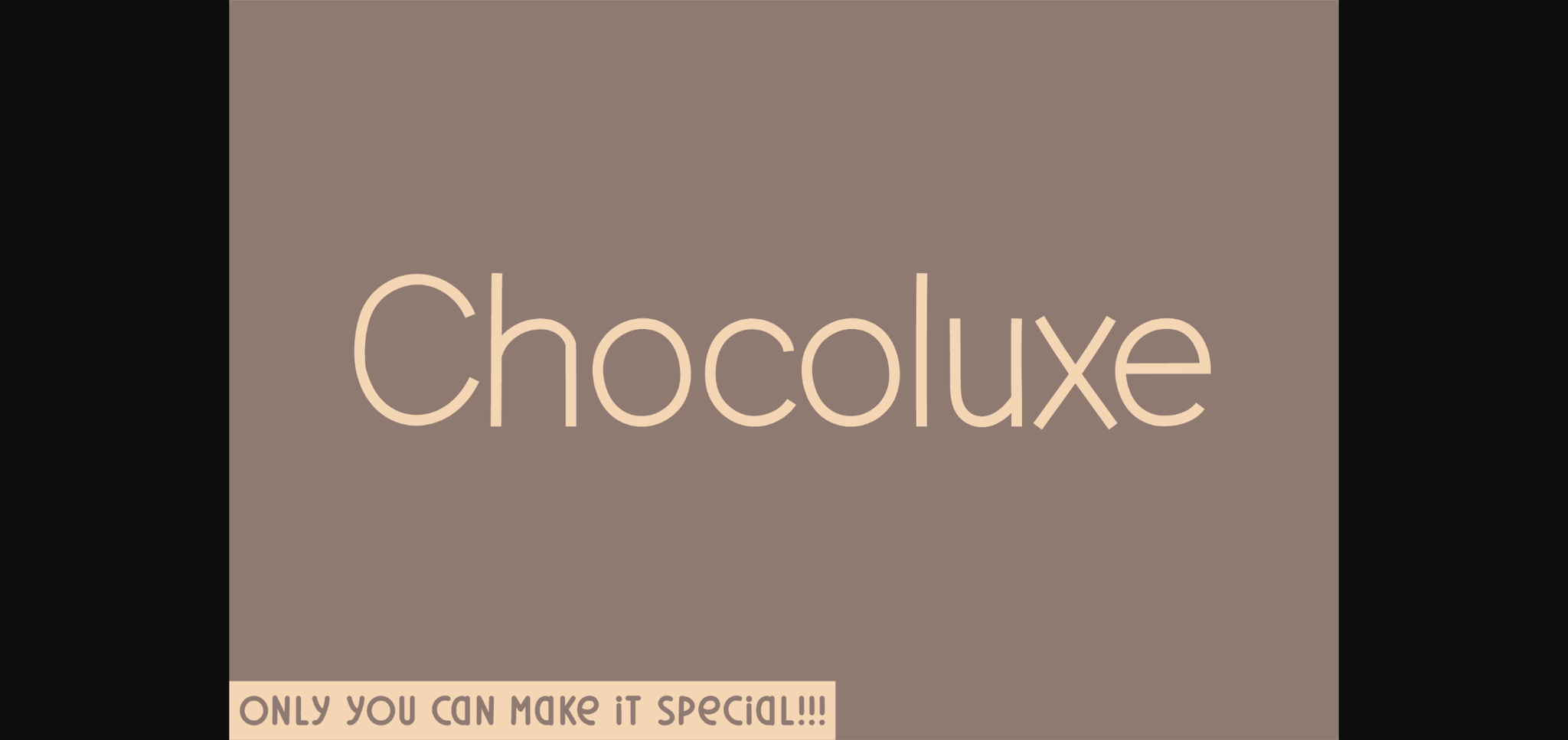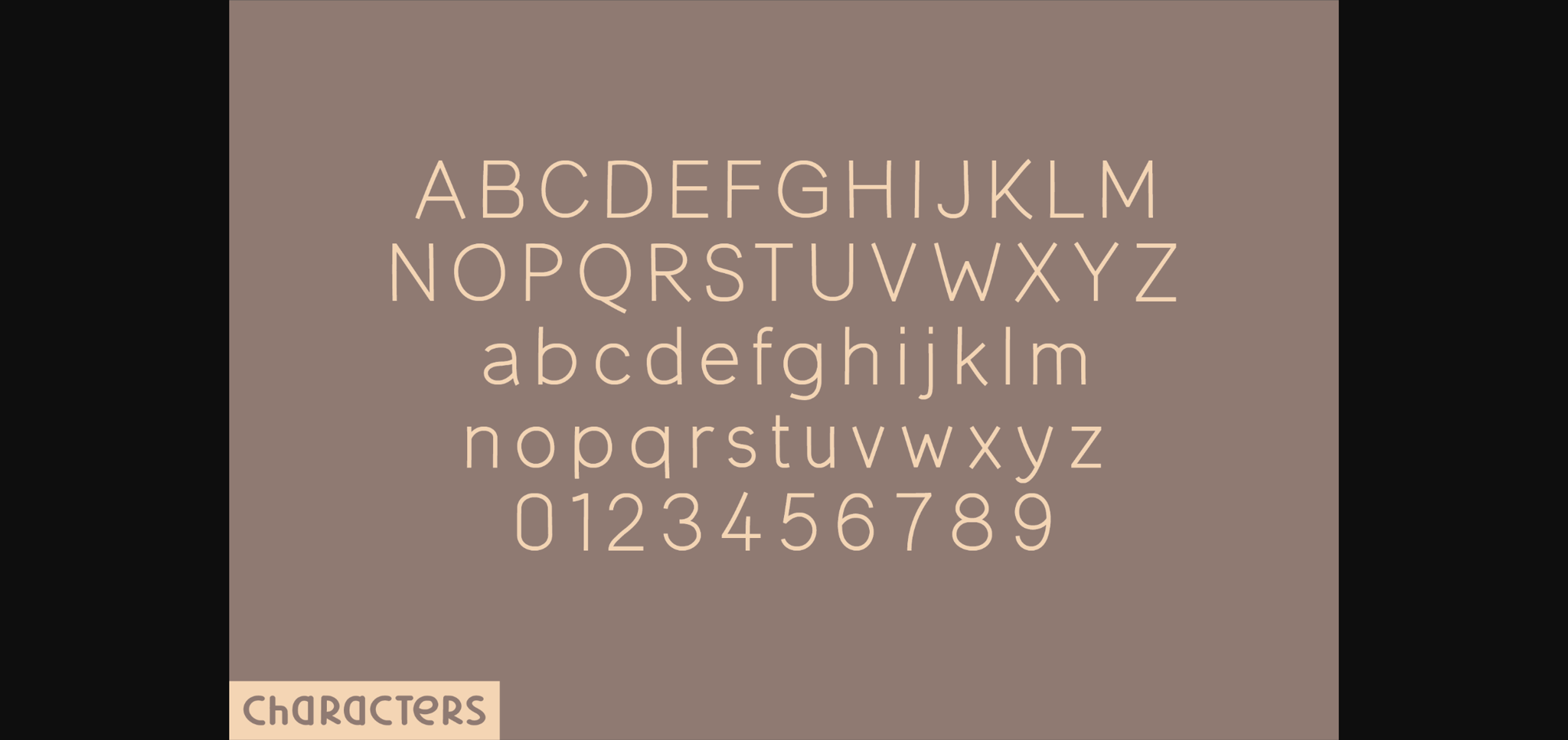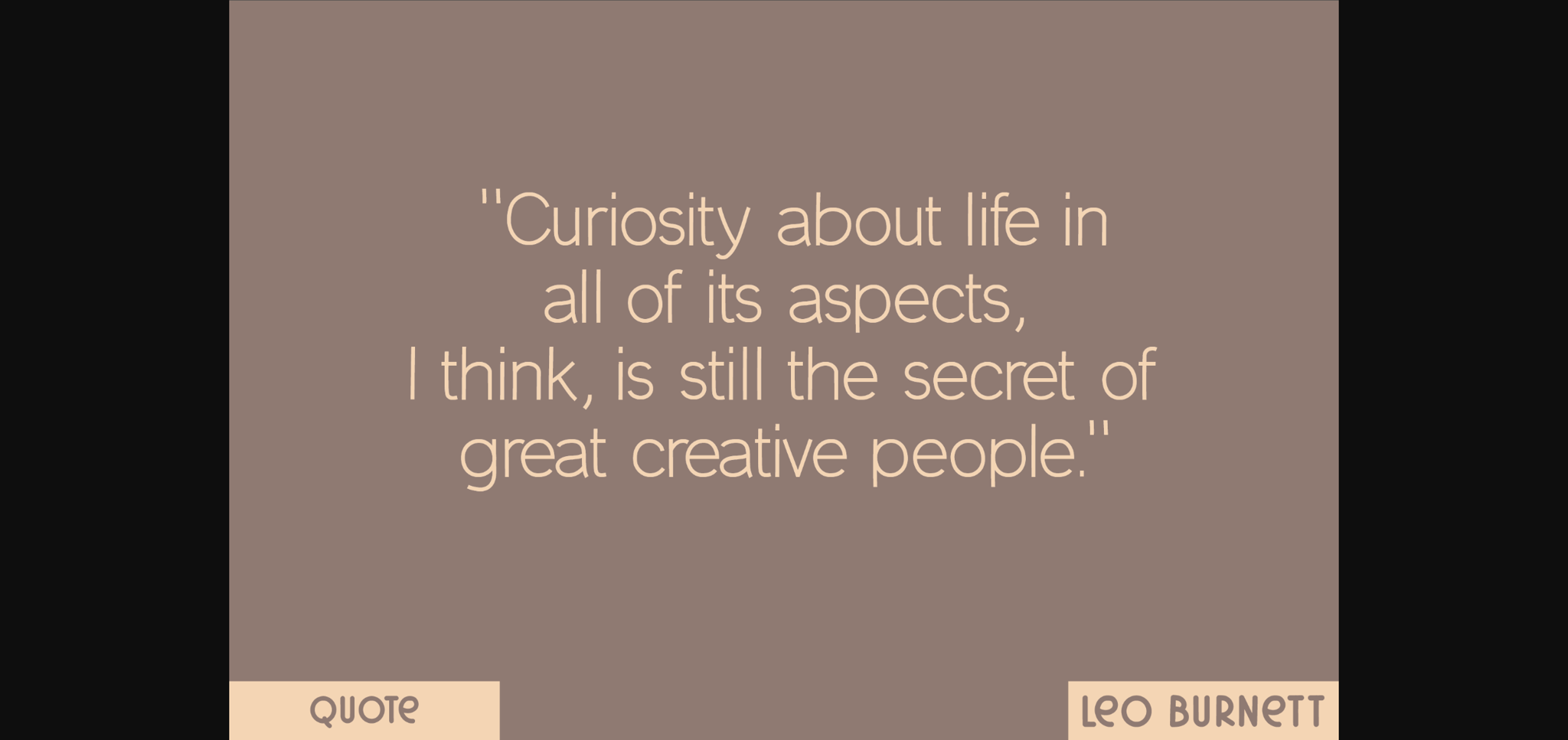
About Chocoluxe Font
Immerse yourself in the world of Chocoluxe, a handcrafted sans-serif font that tastefully blends uppercase, lowercase, numerals, and functional characters together. The well-rounded finish of each letter radiates a firm yet inviting appeal. Ideal for designs striving for a touch of distinct uniqueness, Chocoluxe is your perfect partner in carving out an unforgettable typographical experience.